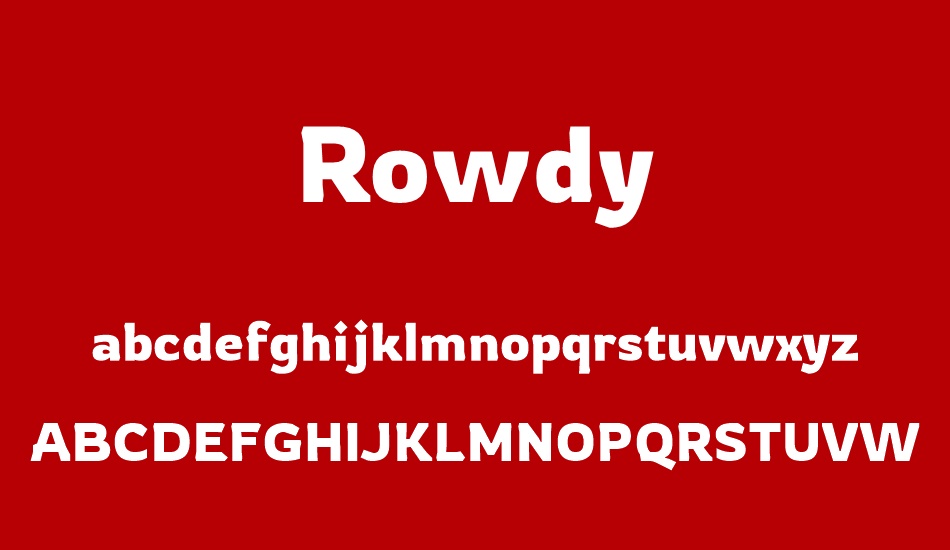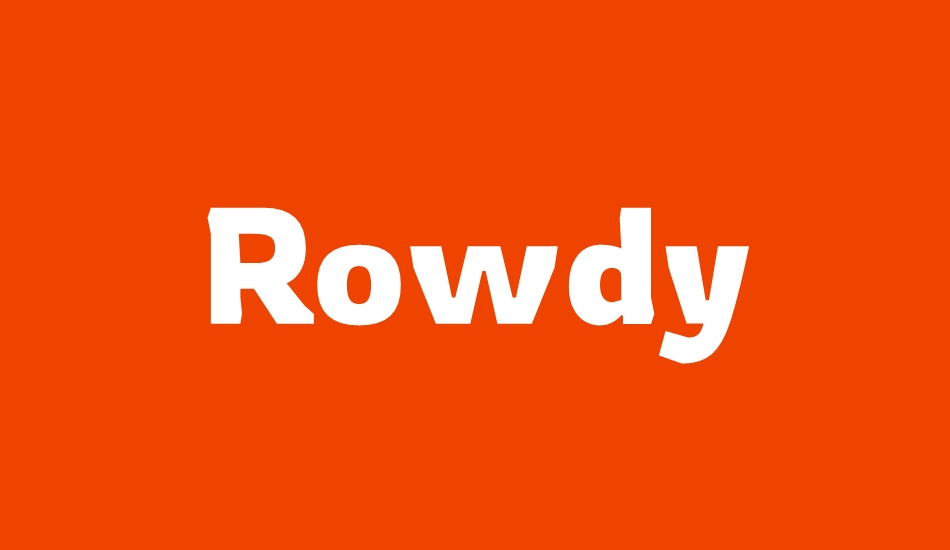
Rowdy
A Latin display typeface inspired by the rough & tough Indian action cinema.
Rowdy Pro font family includes 3 weights - Light (Semi-Condensed): designed to set supporting body-text with optimal glyphs width. Regular: designed for the large headers & titles. Bold: designed for extremely heavyweight title designs.
Designed by: Jaikishan Patel